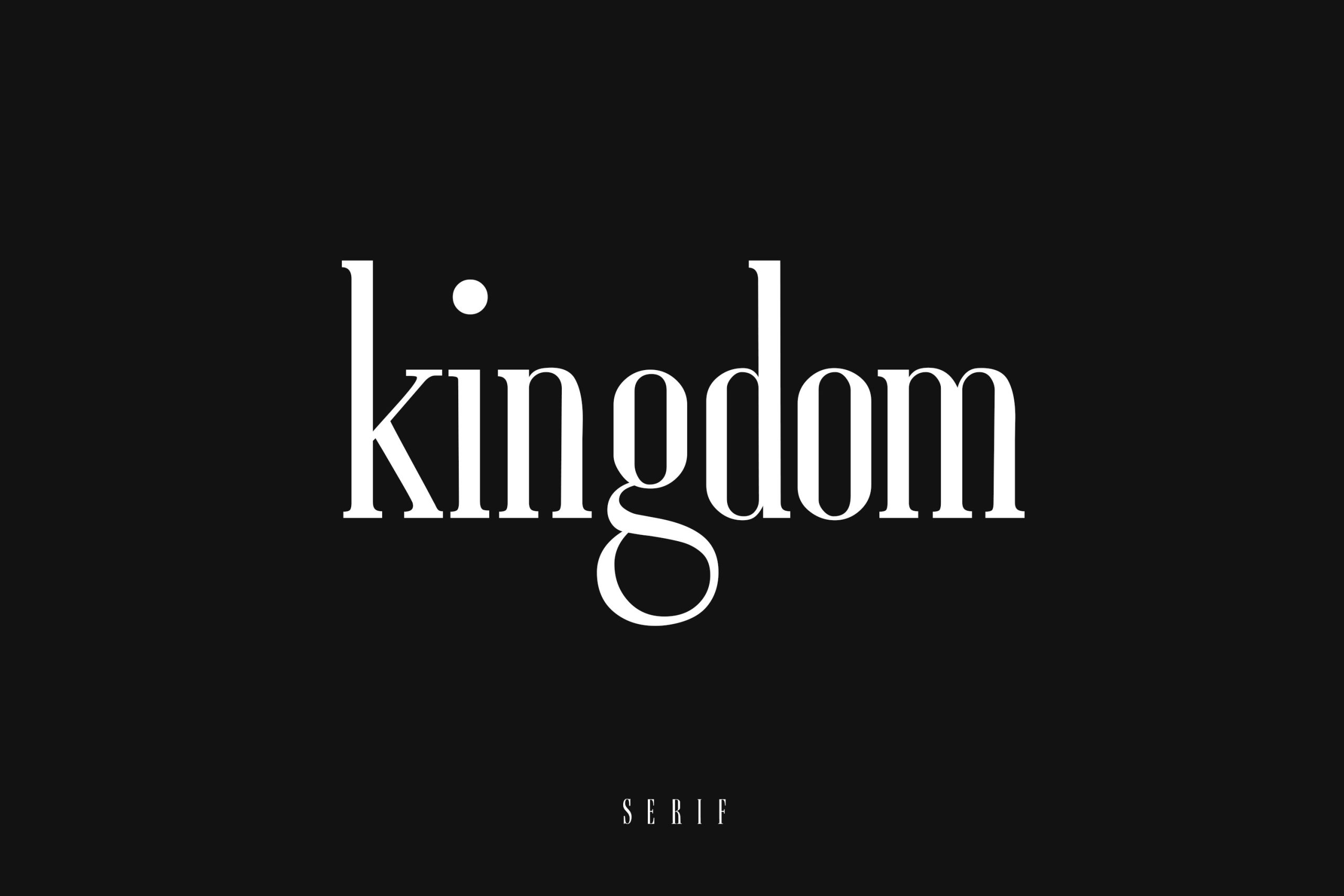
Kingdom Font
Kingdom is a modern and unique serif font suitable for headlines, large text, branding, logotypes, display, and much more. A professional and unique font suitable for cool <logos, promotional content, and marketing graphics that are sure to captivate everyone’s attention!
Kingdom Serif Font